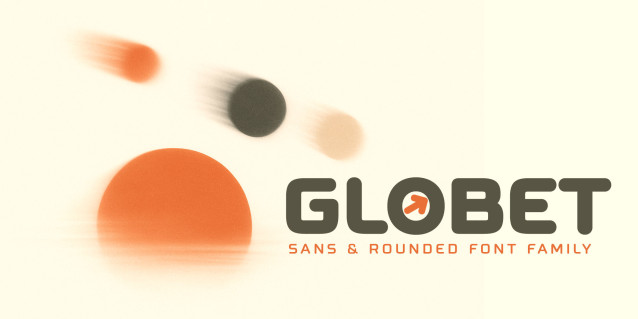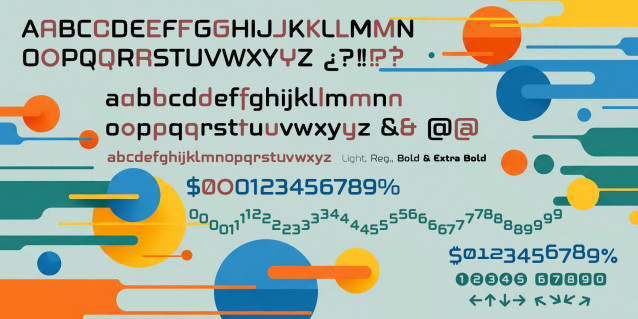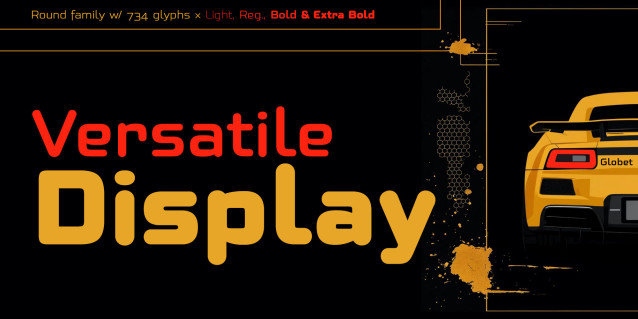
Globet Rounded Font
Globet Rounded is a multipurpose conceptual font that perfectly combines boldness with elegance. Globet was born from the desire to balance legibility and personality. Gentle geometry and optical precision come together to create an exceptional reading experience.
Its square proportions provide a solid foundation, while its rounded shapes soften the geometric structure, giving it a friendly, approachable, and modern tone. Rounded typefaces have that unique magic: they communicate with warmth without losing strength; they are versatile, friendly, and highly professional, ideal for brands that want to connect without appearing cold or distant.
Four weights, endless possibilities. Globet Rounded comes in four carefully balanced versions: Light, Regular, Bold, and Extra Bold. You can use it for everything from light and airy body text to striking headlines that demand a strong presence.